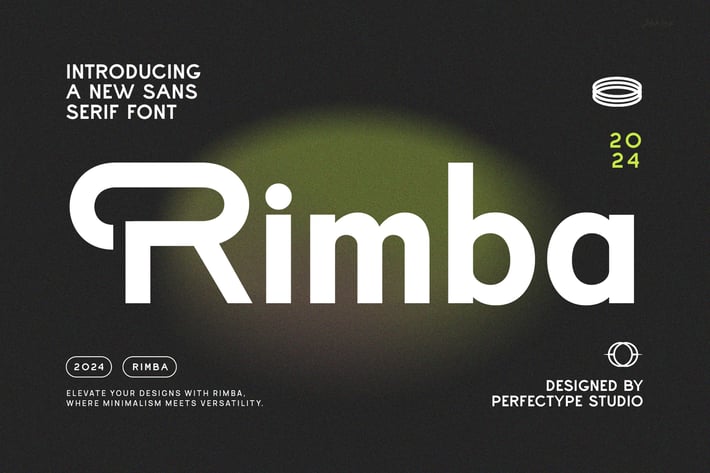
Rimba Modern Futuristic Sans Serif Font
Rimba Modern Futuristic Sans Serif is a sleek and contemporary typeface designed for those who value precision, minimalism, and cutting-edge aesthetics. With its geometric structure and refined letterforms, this font offers a perfect blend of modern design and functional clarity. Whether used in corporate branding, esports visuals, or high-tech product packaging, Rimba brings a futuristic yet professional touch to every project.
Crafted for versatility, Rimba thrives in both digital and print applications. Its clean, well-balanced letterforms make it an excellent choice for logos, magazine layouts, advertising campaigns, sports branding, and gaming interfaces. The structured design ensures effortless readability, making it just as effective in bold headlines as in longer text passages.
This font’s strong yet elegant presence makes it ideal for agencies, startups, and businesses looking to establish a contemporary and innovative identity. Whether you're designing social media templates, sleek corporate brochures, or dynamic website interfaces, Rimba adapts seamlessly to any creative vision.
For those who seek a modern sans serif with a futuristic edge, Rimba is the perfect choice. Elevate your designs with its precise lines, sharp angles, and clean flow, ensuring your message is delivered with confidence and style.
Crafted for versatility, Rimba thrives in both digital and print applications. Its clean, well-balanced letterforms make it an excellent choice for logos, magazine layouts, advertising campaigns, sports branding, and gaming interfaces. The structured design ensures effortless readability, making it just as effective in bold headlines as in longer text passages.
This font’s strong yet elegant presence makes it ideal for agencies, startups, and businesses looking to establish a contemporary and innovative identity. Whether you're designing social media templates, sleek corporate brochures, or dynamic website interfaces, Rimba adapts seamlessly to any creative vision.
For those who seek a modern sans serif with a futuristic edge, Rimba is the perfect choice. Elevate your designs with its precise lines, sharp angles, and clean flow, ensuring your message is delivered with confidence and style.